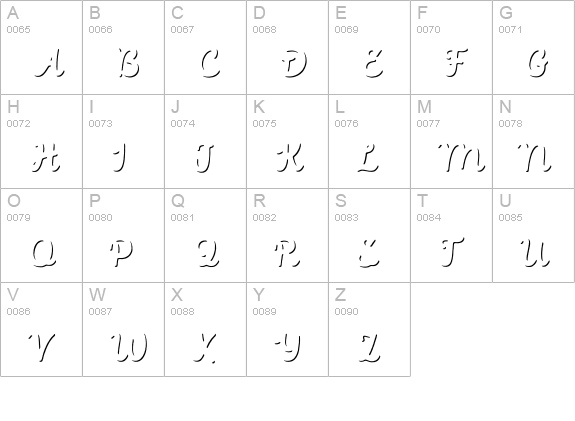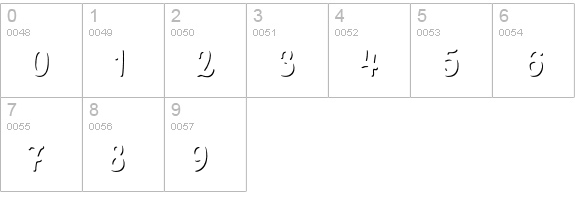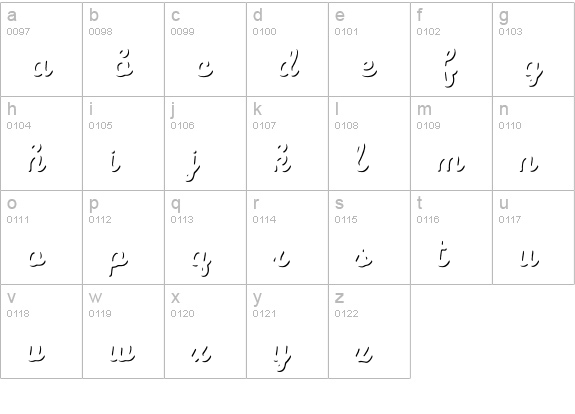
Intro Script B Shade Font Details
Introducing Intro Script B Shade font, a stunning display typeface that effortlessly combines elegance with a touch of modernity. This font features intricate, handcrafted details that add a unique charm to any design project. With its elaborate swashes and flourishes, Intro Script B Shade font is perfect for adding a sophisticated and artistic flair to your creations. The best part? Intro Script B Shade font is available for free download at FontsMarket.com. Embrace the beauty and versatility of this exquisite font without breaking the bank. Whether you're designing invitations, branding materials, or social media graphics, Intro Script B Shade font will elevate your work to new heights. Don't miss out on this amazing opportunity to enhance your designs with this exceptional typeface. Download Intro Script B Shade font today and let your creativity shine!